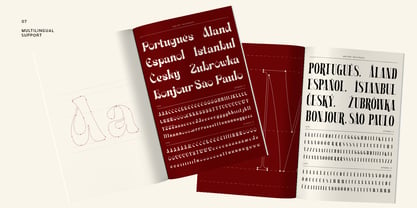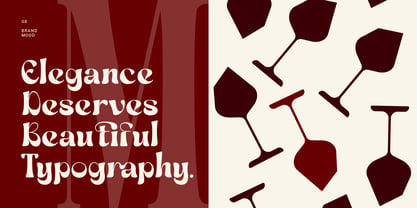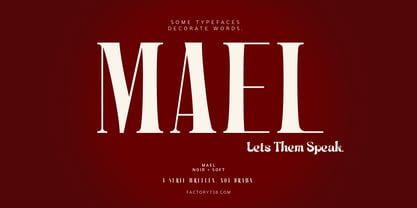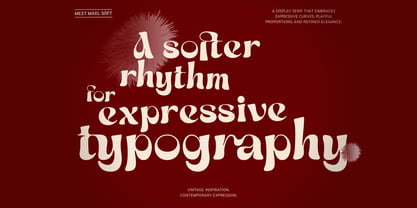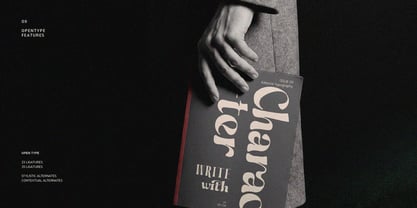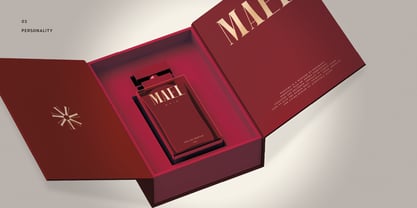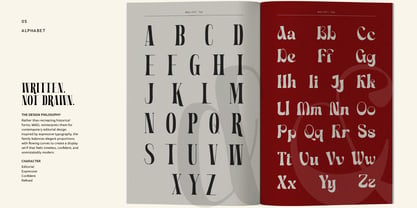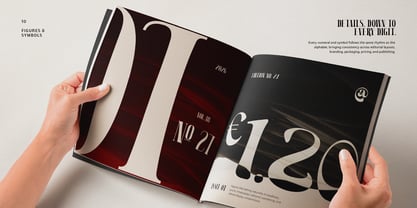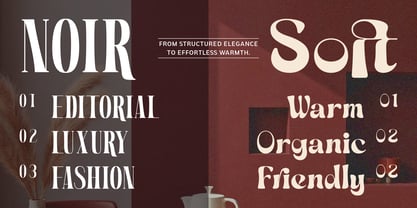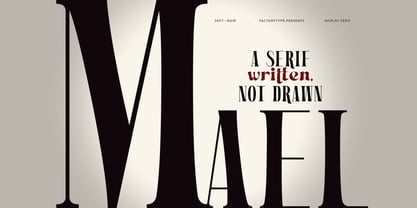
Some typefaces decorate words. MAEL lets them speak.
MAEL is a premium display serif duo created for designers who believe typography should carry emotion as much as information. Rather than recreating historical forms, MAEL reinterprets classic editorial serif traditions through a contemporary lens, balancing confident structure with expressive personality.
The family consists of two complementary styles:
MAEL NOIR Tall, elegant, and editorial.
Inspired by classic publishing, luxury branding, and fashion typography, Noir features refined proportions, sharp vertical rhythm, and sophisticated contrast. It brings authority and timeless elegance to headlines, packaging, magazines, branding, and premium visual identities.
MAEL SOFT Warm, organic, and expressive.
Soft introduces flowing curves, playful terminals, and generous forms that soften the overall voice without losing sophistication. It was designed to pair naturally with Noir, creating dynamic typographic compositions with warmth, personality, and charm.
Together, Noir and Soft create a versatile design system that moves effortlessly between luxury, editorial, lifestyle, beauty, hospitality, publishing, packaging, and modern branding.
Whether used independently or combined in the same composition, MAEL offers contrast, harmony, and an unmistakable editorial presence.
FEATURES
• MAEL Noir & MAEL Soft
• Uppercase & Lowercase
• Numerals & Punctuation
• Symbols
• Multilingual Support
• OpenType Features